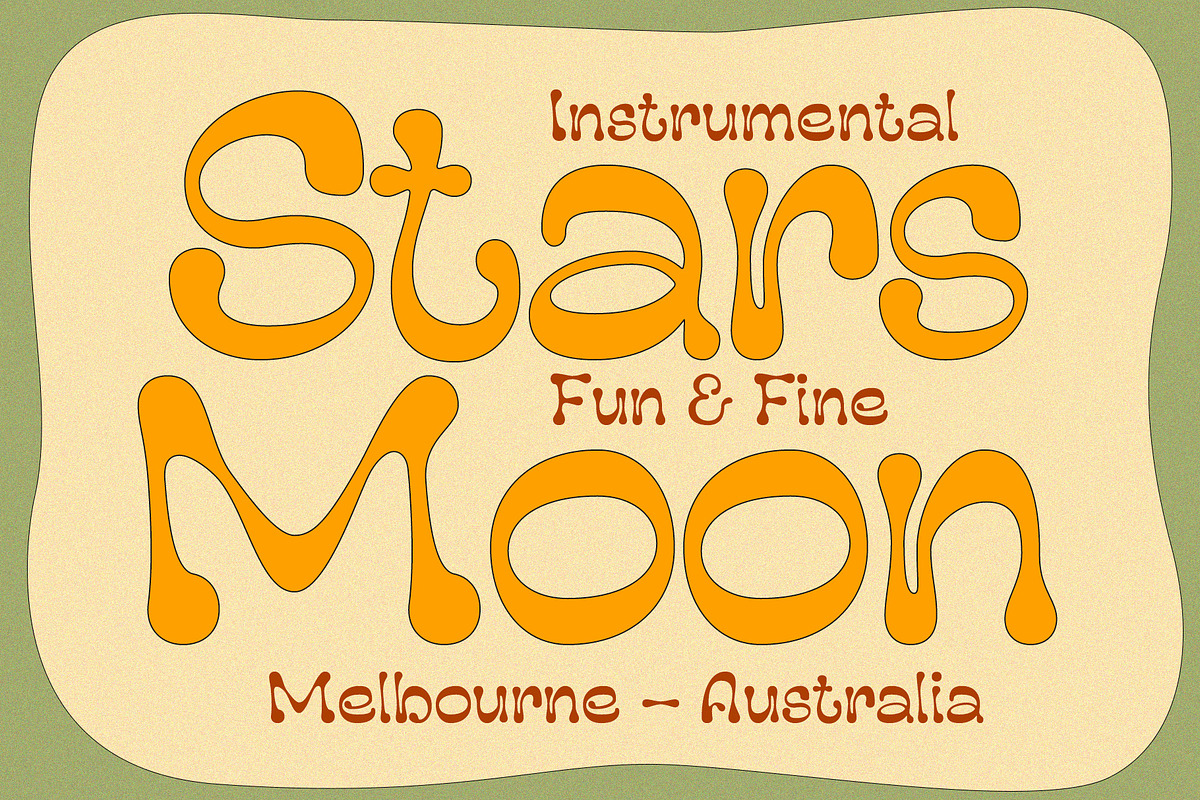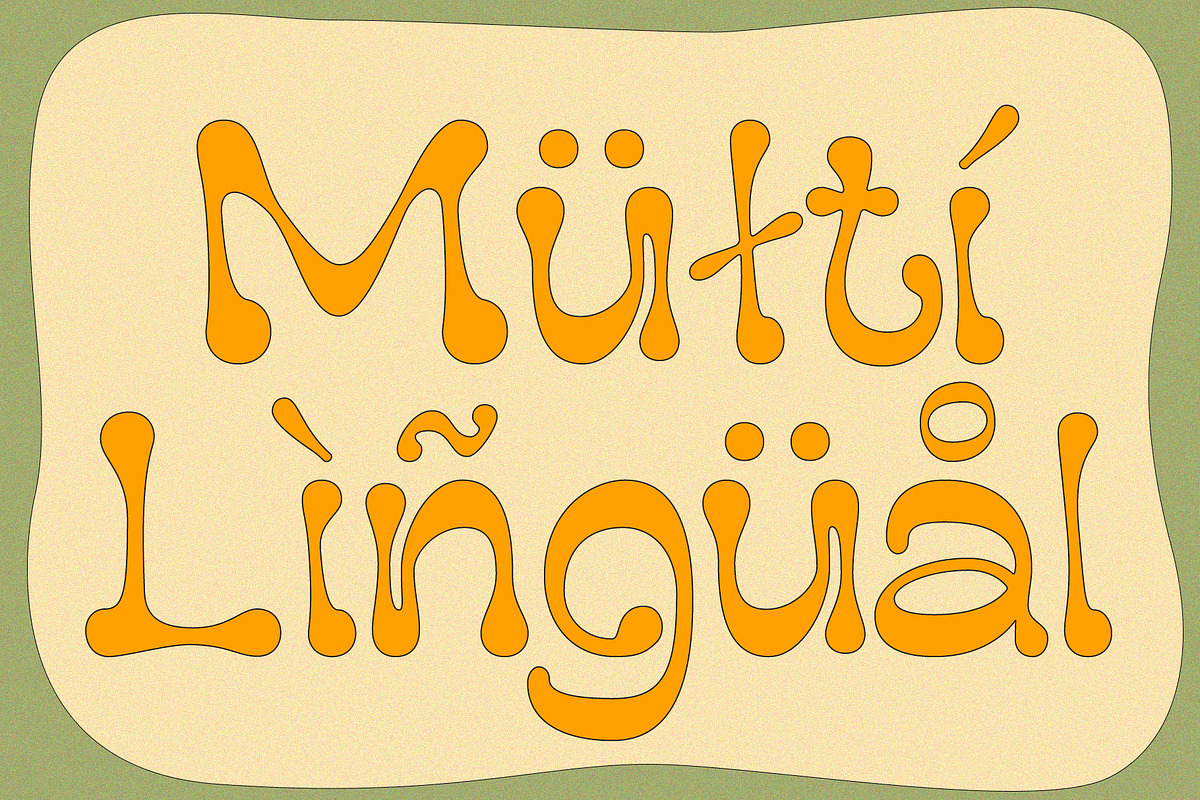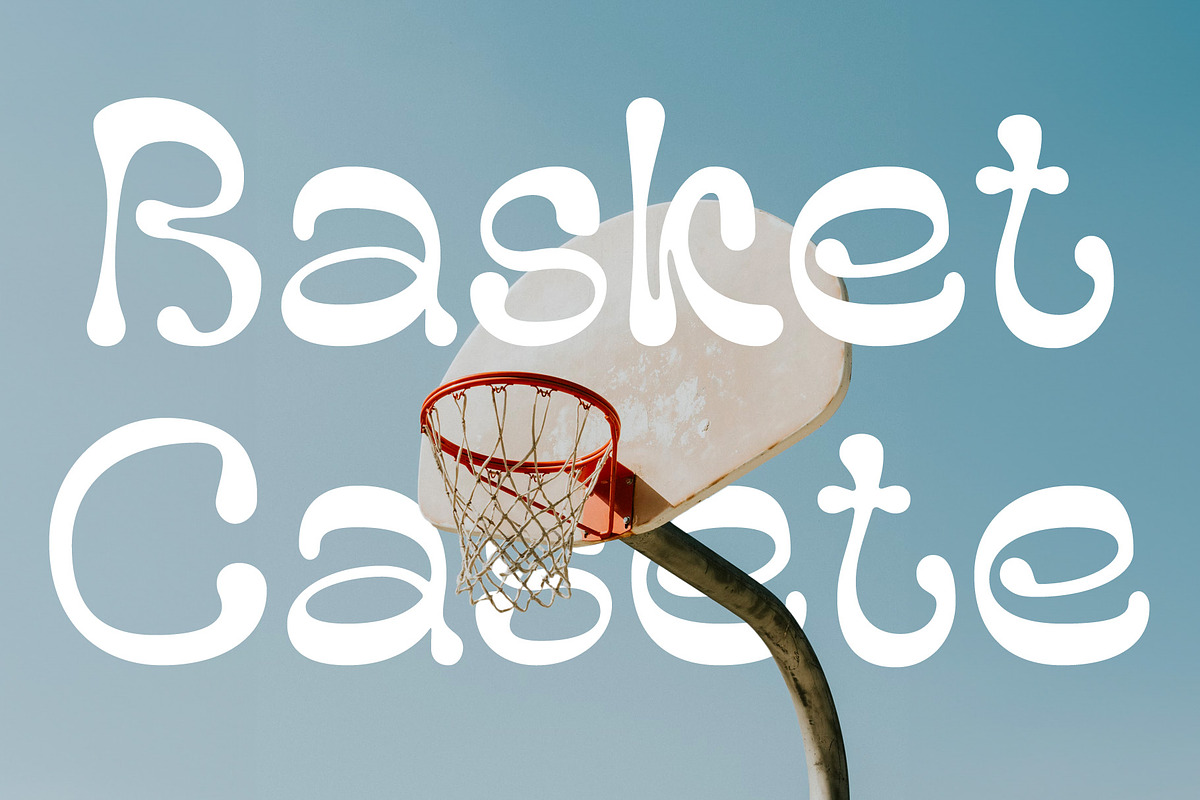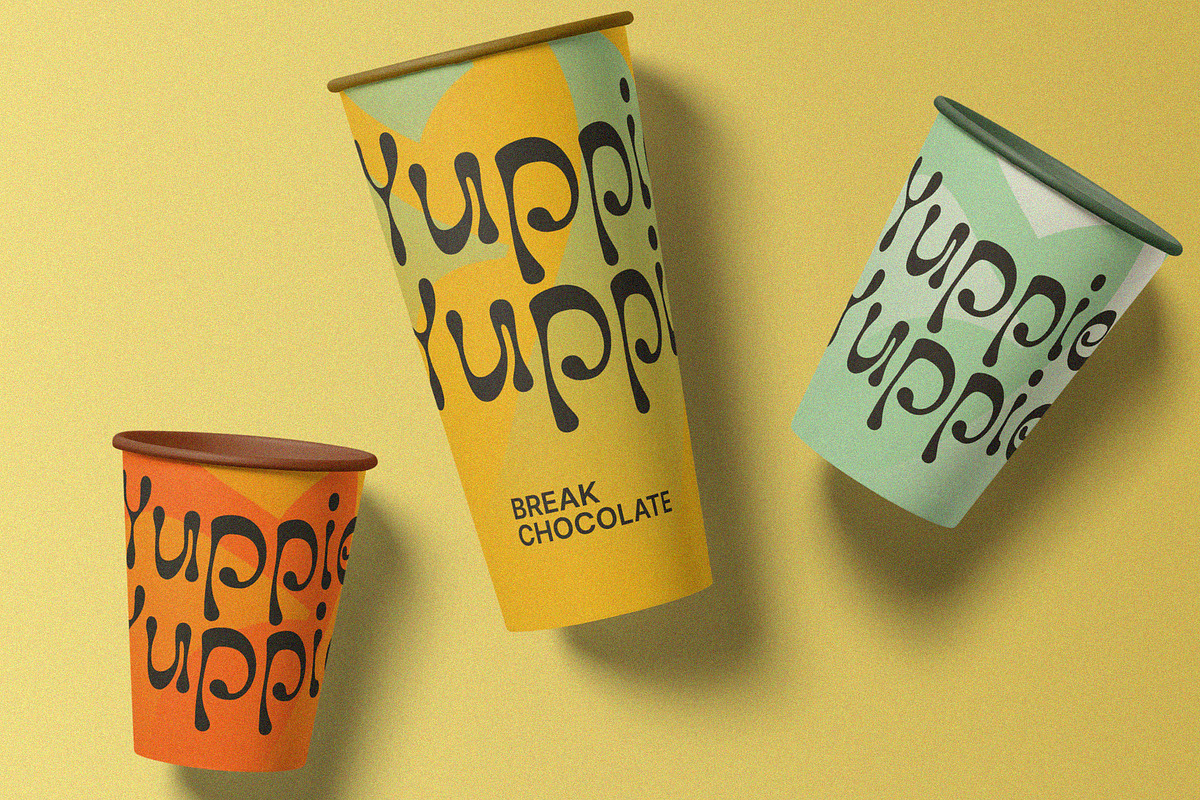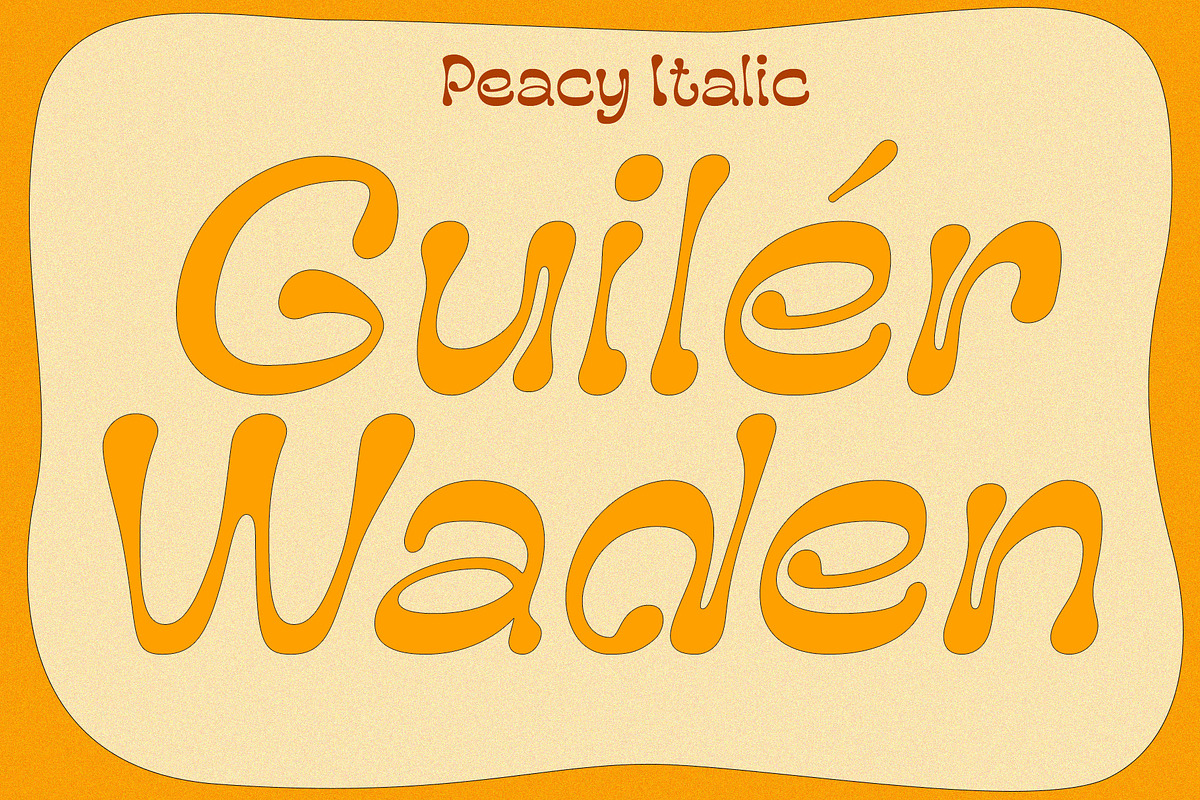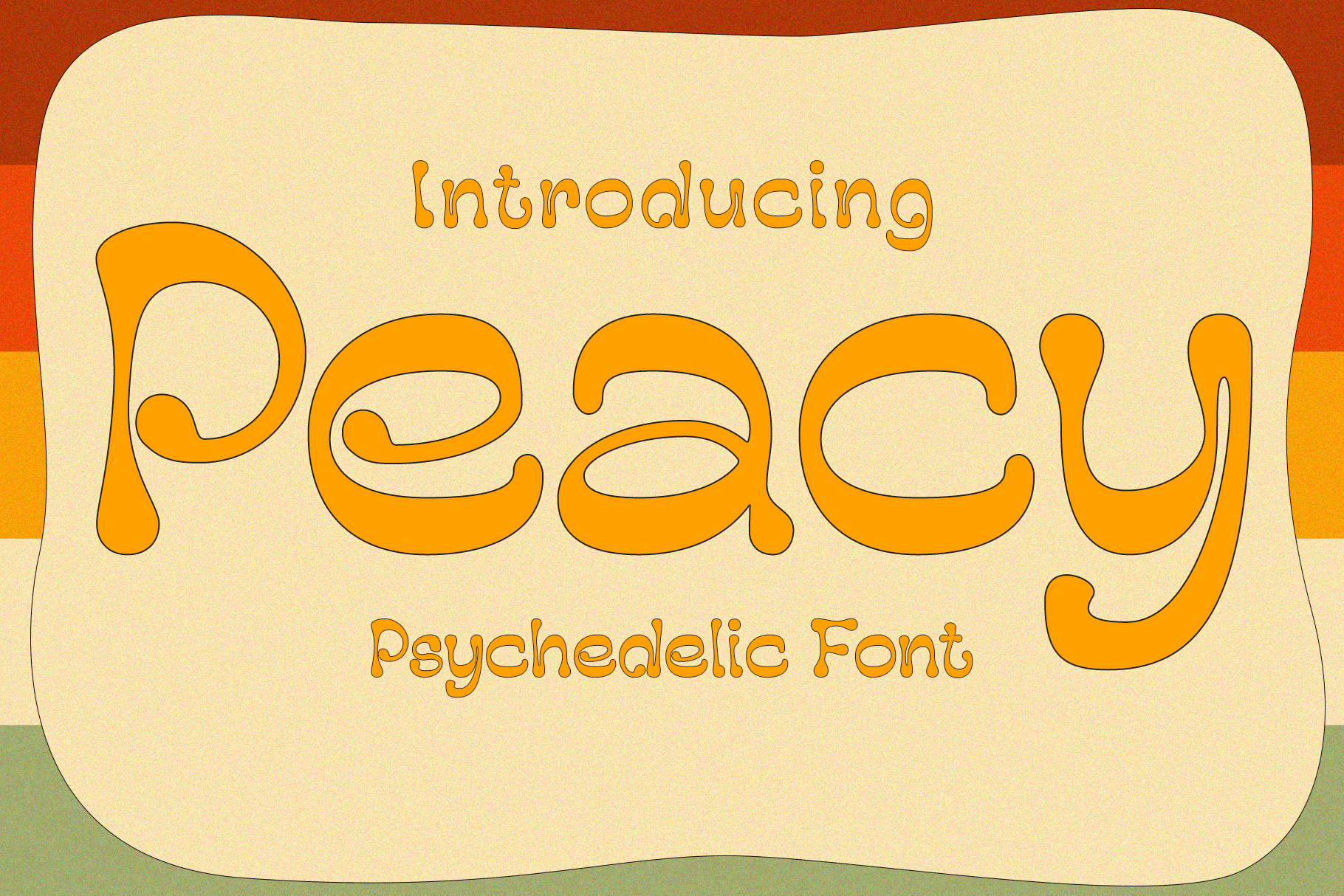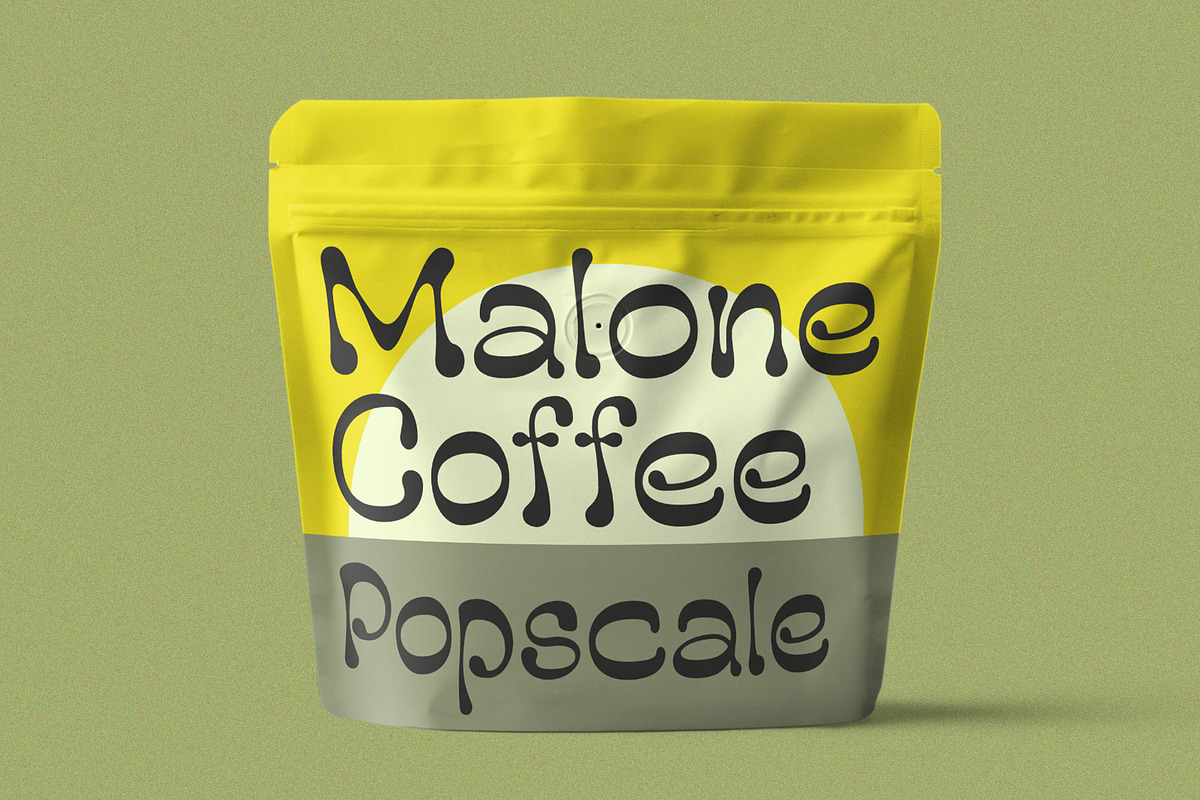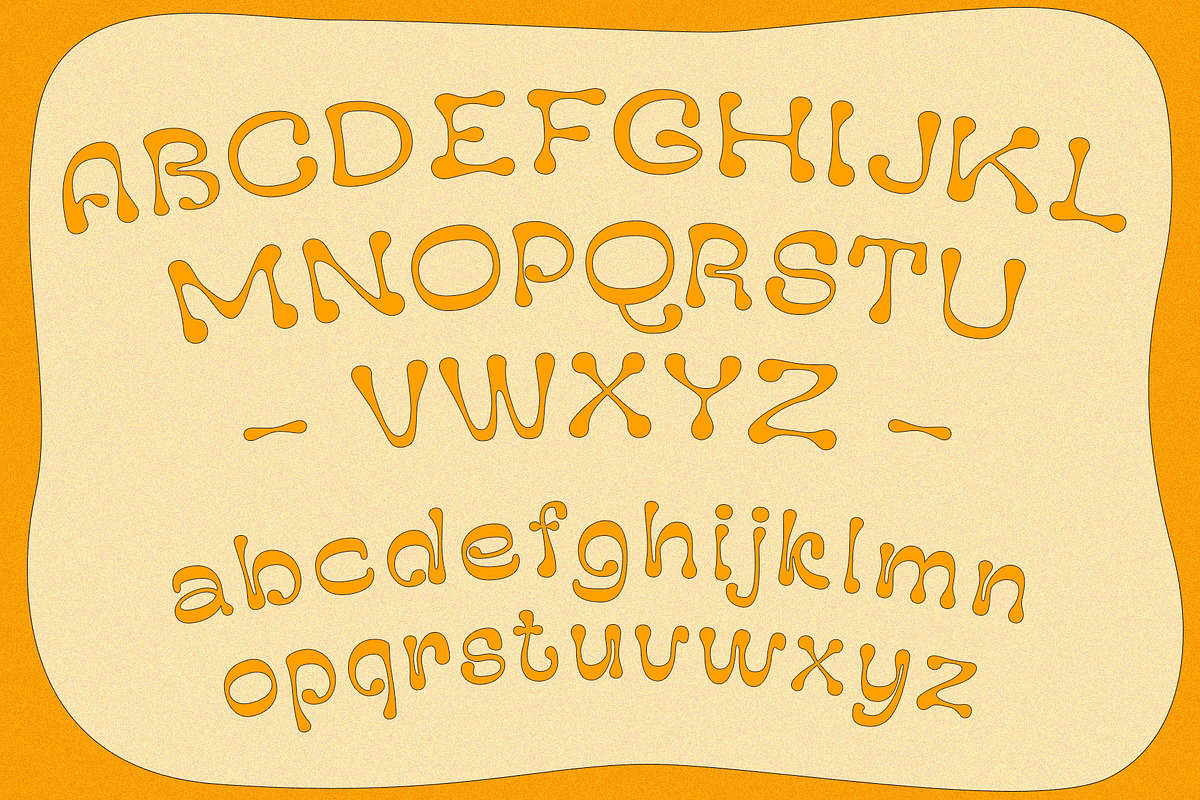
Peacy – Psychedelic Font
Introducing Peacy – Psychedelic Font Playful and Vibrant Typography Peacy Psychedelic Font, the ultimate psychedelic font, radiates fun and cheerfulness with its lively shapes and vibrant colors. Each letter dances with its unique personality, creating a dynamic visual experience.
Reggae-Inspired Vibes Infused with the spirit of reggae music, Peacy captures freedom and positivity. Its flowing curves and wavy lines mirror the rhythmic melodies and laid-back vibes of reggae culture.
Versatility in Design Peacy’s versatility adds a touch of joy display to any creative project, from posters to album covers and party invitations. Its adaptability allows you to craft a broad range of designs effortlessly.
Spread Positivity With Peacy, you can effortlessly convey good vibes and positivity. Allow your text to groove to the reggae rhythm and bring smiles to your audience’s faces.
With Peacy, you can effortlessly convey good vibes and positivity. Allow your text to groove to the reggae rhythm and bring smiles to your audience’s faces.
- Peacy Regular
- Peacy Italic